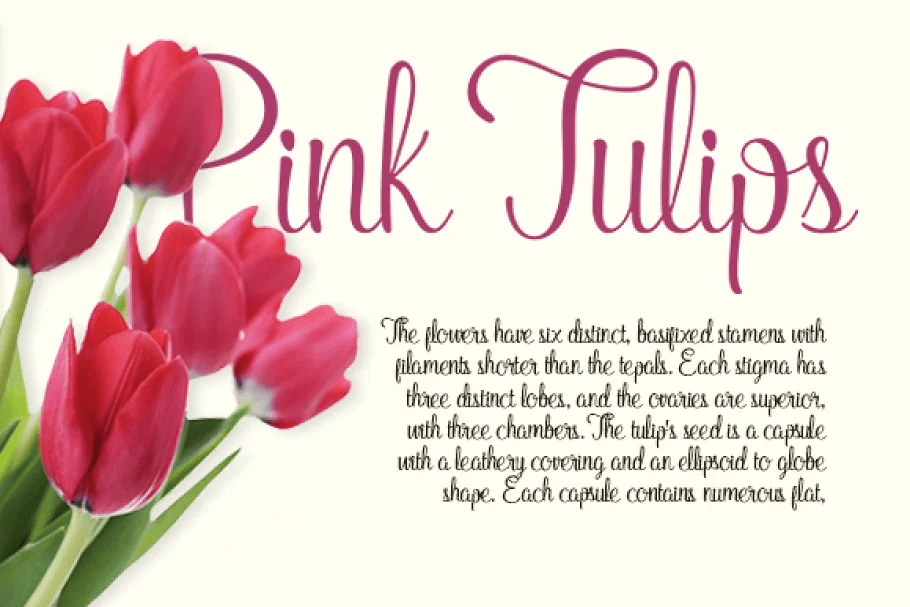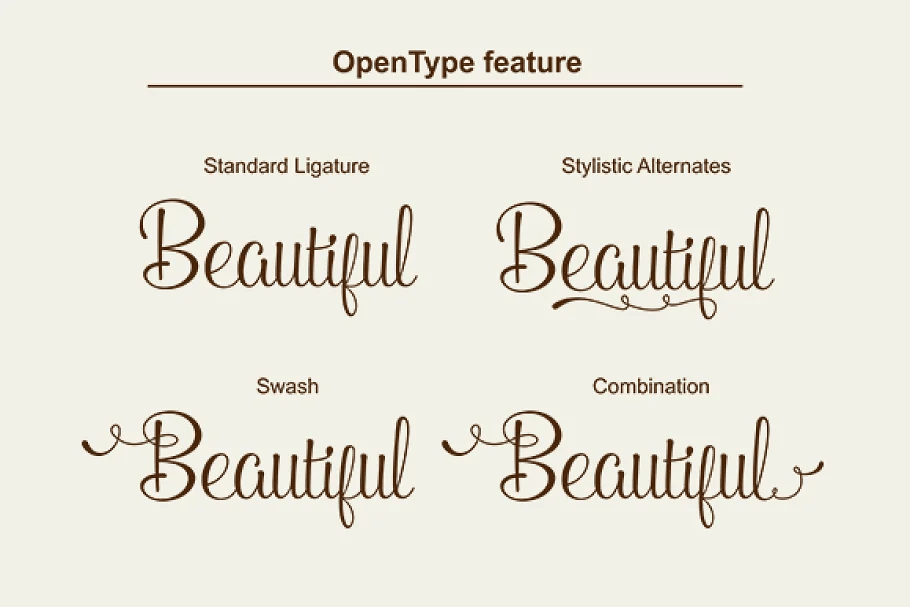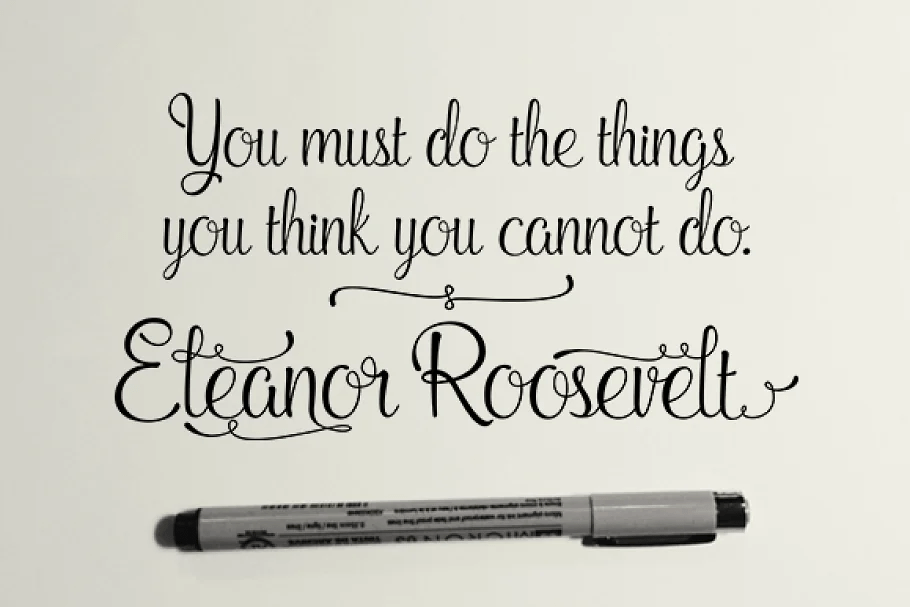
Aleandra Script
Aleandra Script is a display typeface that adopts two building models: the typographic (with repetition of shapes) and the script (with the freedom of writing). The models are presented in a subtle, unobtrusive way and mainly without conflicts. The essence of each personality is present, coexisting harmoniously and enjoying the same stylistic space. It Contains 408 glyphs in total and 211 alternative characters to improve your design. It is suitable for logo, packaging, headline, poster, t-shirt, etc.
After careful evaluation of the connections between characters, intelligent standards have been established for use of the OpenType feature, that used together with the stylistic alternates, stylistic sets, and swash feature, offers a gentle and friendly pace. These can be accessed with OpenType savvy programs such as Adobe Illustrator and Adobe InDesign. A Manual showing you how to use the OpenType features is included in the package.